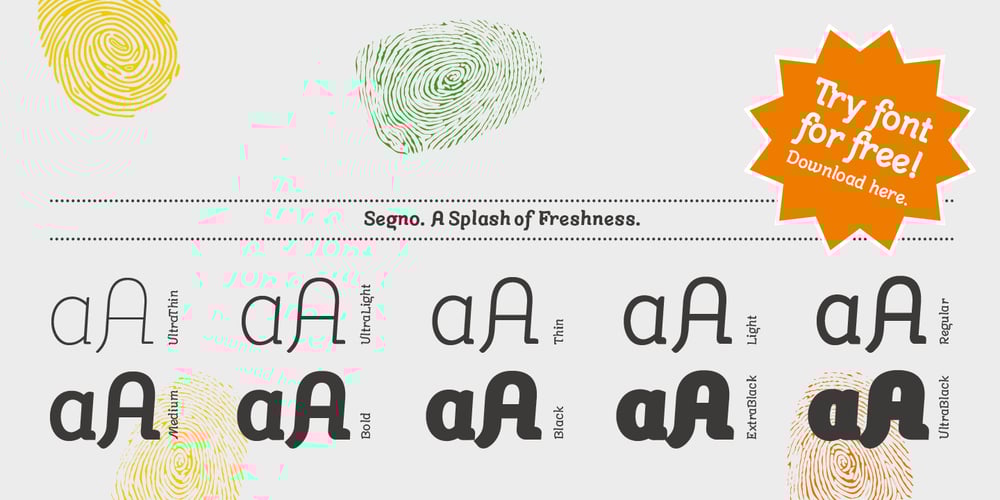
Segno Brush Font Family was designed by Filippo Salmina and published by FSdesign-Salmina. Segno Brush contains 10 styles and family package options. Segno. A Splash of Freshness. Cool, young and fresh, Segno surprises with his informal character and convinces for its careful execution. Its rounded forms and serifs evoke discretely the flow of a brush. Due to its moderate inclination Segno is easily readable and suits to more typographic purposes than you probably would expect from an informal typeface. Add a splash of freshness to your artwork, with Segno.